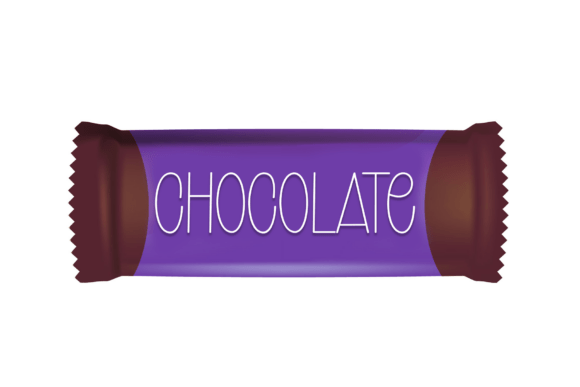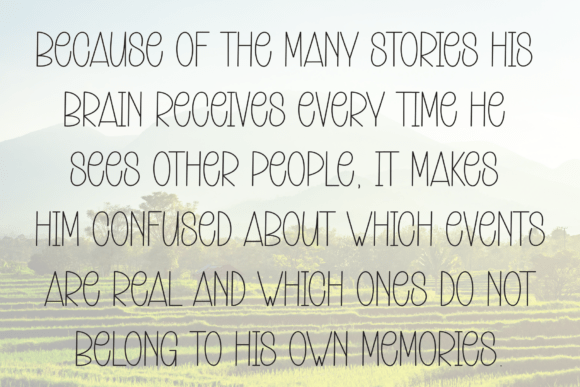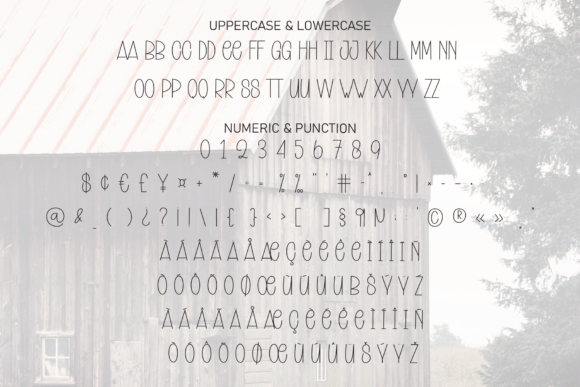
Introduction to Magic Farmhouse Font
Have you ever found yourself scrolling through social media, pinning inspiration boards, or browsing design blogs, and suddenly, a font catches your eye? For me, that moment happened when I stumbled upon the Magic Farmhouse Font. Its fresh, friendly vibe and clean lines instantly drew me in, and I knew I had to learn more. As a designer, I appreciate how a well-chosen font can elevate a project from good to great, and Magic Farmhouse Font is no exception.
With its relaxed structure and approachable design, Magic Farmhouse Font is perfect for designers looking for a high-quality font to add a touch of charm and clarity to their creative projects. Whether you’re working on packaging, posters, or social media graphics, this font is sure to deliver. And the best part? It’s available for free download, making it an excellent addition to any design resource library.
As a valuable design resource, Magic Farmhouse Font offers a transparent background, allowing for seamless integration with any design. Its polished appearance and friendly feel make it an ideal choice for designers seeking to create projects that exude warmth and approachability.
Key Features of Magic Farmhouse Font
- Unique Whimsical Design: The Magic Farmhouse Font features a charming, hand-drawn design with intricate details, perfect for creative projects that require a touch of magic.
- Perfect for Creative Projects: The Magic Farmhouse Font is ideal for various creative projects, including wedding invitations, birthday cards, and children’s book illustrations, among others.
- Easy to Customize: With its versatile design, the Magic Farmhouse Font is easy to customize and adapt to different design needs, making it a valuable asset for any designer.
Honest Review: Magic Farmhouse Font
As a designer, I’ve had the pleasure of working with various fonts, and I’m excited to share my thoughts on the Magic Farmhouse Font. This charming font is perfect for any creative project that needs a touch of whimsy and nostalgia.
- ✨ Unique design: The Magic Farmhouse Font features a distinctive, hand-drawn style that’s sure to grab attention.
- ✨ High quality: The font is well-crafted and scalable, making it perfect for use in a variety of design contexts.
- ⚠️ Not ideal for sans-serif designs: While the Magic Farmhouse Font is perfect for rustic or vintage designs, it may not be the best choice for more modern or minimalist projects.
Overall, I’m impressed with the Magic Farmhouse Font and would recommend it to designers looking for a unique and charming font for their creative projects. It’s a great addition to any design resource library, and its high quality and free download make it a valuable asset for designers of all levels.